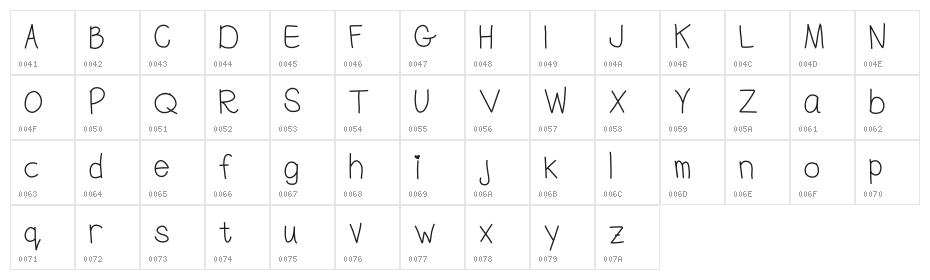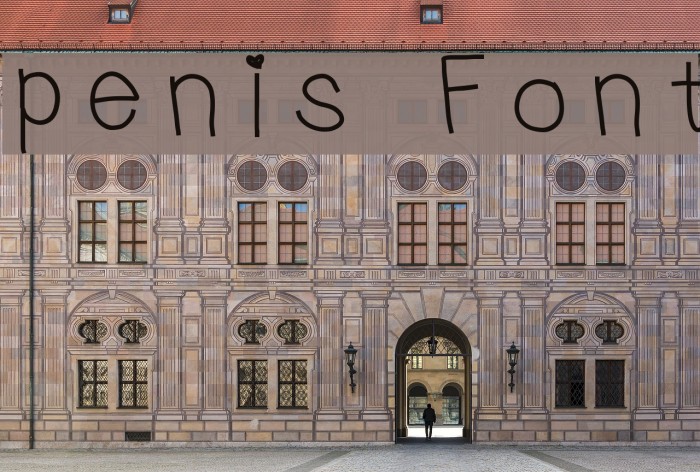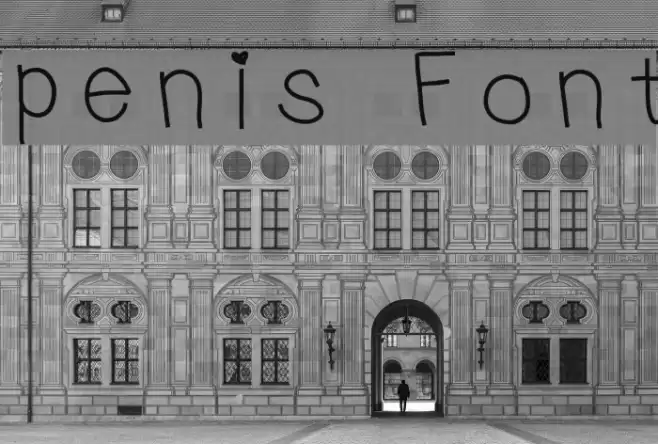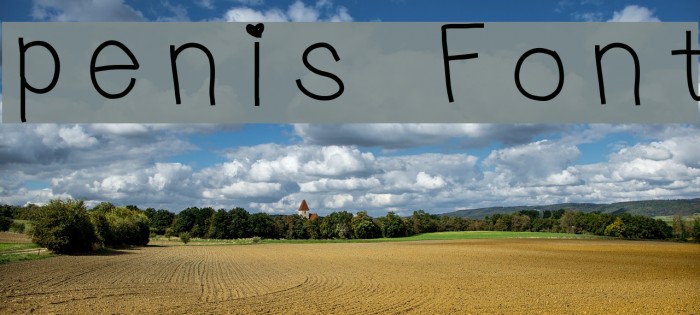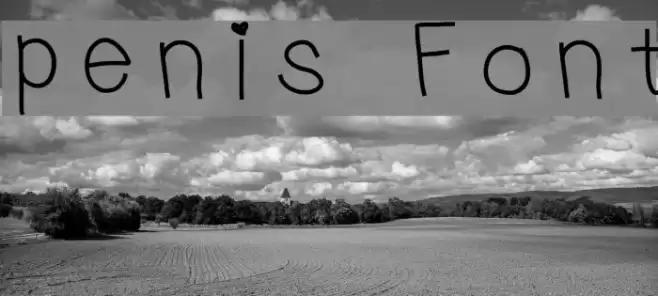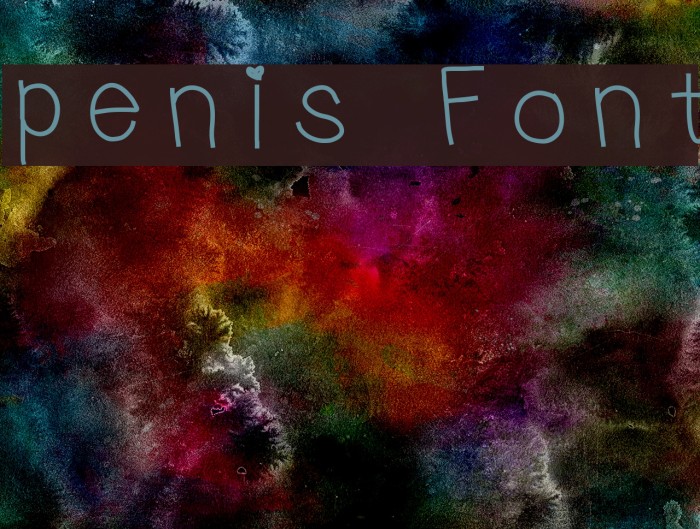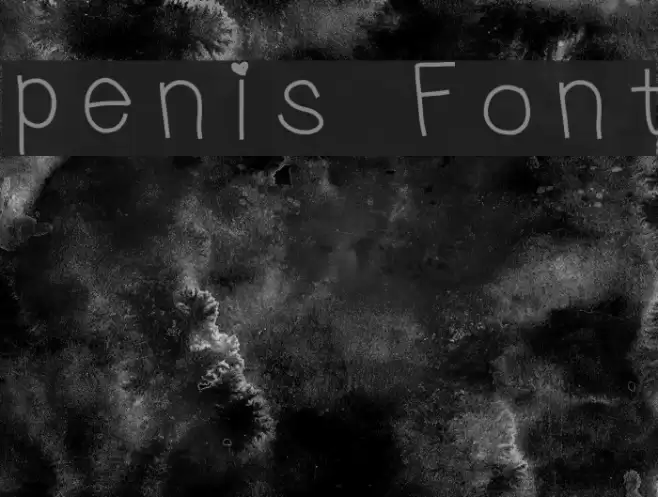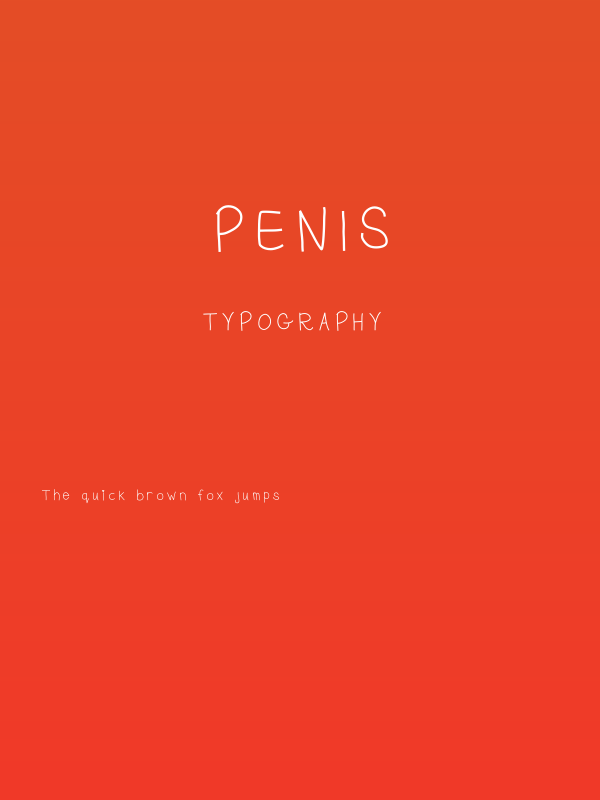
penis Font
penis Description
This playful and whimsical font features a hand-drawn style with irregular strokes and a casual, friendly appearance. The uppercase and lowercase letters are slightly uneven, adding to the charm and informal feel. The font includes a heart detail on the lowercase 'i', enhancing its playful and unique character. The numbers and special characters maintain the same hand-drawn aesthetic, making it suitable for creative and informal projects. The overall design is approachable and light-hearted, perfect for adding a personal touch to any text.
| Proposed Projects | Ideal for children's books, greeting cards, playful branding, and DIY projects. |